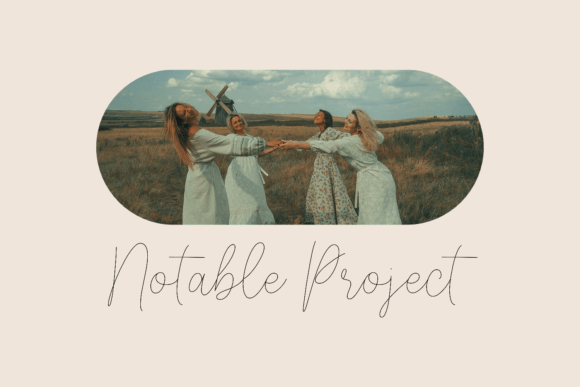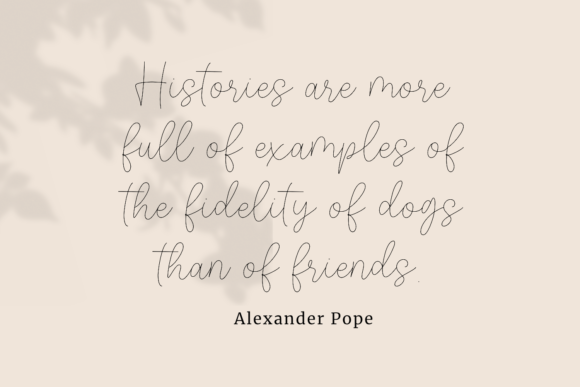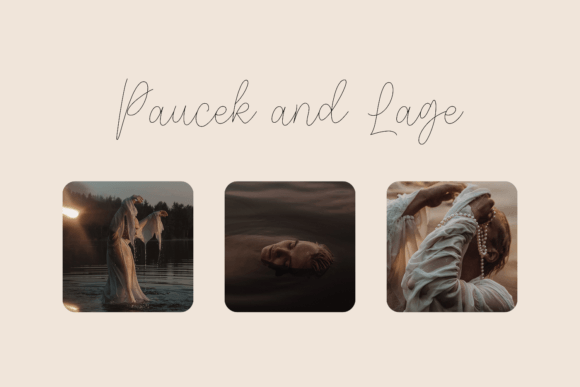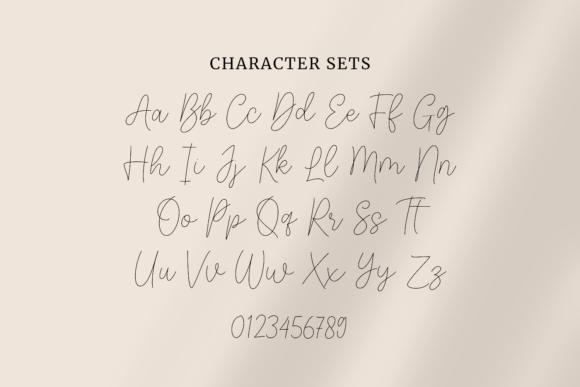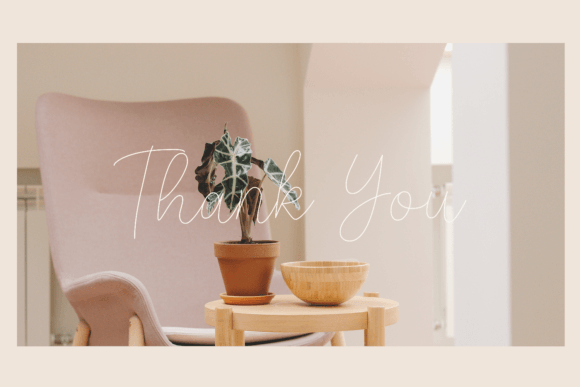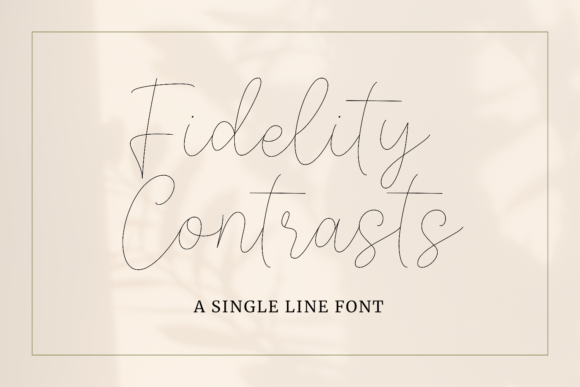
Fidelity Contrasts Font: Elevate Your Designs with Elegance
In the world of typography, fonts play a crucial role in conveying the tone and aesthetic of a design. For those seeking a touch of sophistication and elegance, Fidelity Contrasts Font is an exceptional choice. This distinct, graceful single-line font is poised to captivate your audience with its ravishing style, making it perfect for a variety of creative projects.
Discover the Charm of Fidelity Contrasts Font
Fidelity Contrasts Font is a stunning typeface that boasts a unique single-line design. Its elegant lines and curves create a beautiful visual experience, making it an excellent selection for designers and crafters looking to add a touch of refinement to their work. Whether you’re creating wedding invitations, stationery art, social media posts, or any other design project, Fidelity Contrasts Font is sure to impress.
With Fidelity Contrasts Font, the possibilities are endless. Here are some ideas to get you started:
- Wedding Invitations: Create gorgeous wedding invitations that set the tone for a luxurious and memorable celebration. The font’s elegant design makes it perfect for formal wedding stationery.
- Stationery Art: Add a touch of sophistication to your stationery art with Fidelity Contrasts Font. Use it to create beautiful greeting cards, thank-you notes, and more.
- Social Media Posts: Make your social media posts stand out with the font’s eye-catching design. Use it to create engaging quotes, announcements, and promotional content.
- Branding and Packaging: Elevate your brand’s visual identity with Fidelity Contrasts Font. Use it to create stunning logos, labels, and packaging designs that exude elegance and refinement.
Why Choose Fidelity Contrasts Font?
So, what sets Fidelity Contrasts Font apart from other fonts? Here are some reasons why designers and crafters love this beautiful typeface:
- Unique Design: Fidelity Contrasts Font features a distinct single-line design that is both elegant and eye-catching.
- Versatility: The font is perfect for a wide range of design projects, from wedding invitations to social media posts.
- Elegance: Fidelity Contrasts Font exudes sophistication and refinement, making it ideal for designs that require a touch of luxury.
- Easy to Use: The font is easy to read and works well in various sizes, making it perfect for both print and digital designs.
Tips for Using Fidelity Contrasts Font
To get the most out of Fidelity Contrasts Font, here are some tips to keep in mind:
- Pair with Complementary Fonts: Pair Fidelity Contrasts Font with complementary fonts to create a unique and visually appealing design.
- Experiment with Colors: Try out different color schemes to find the perfect combination that complements the font’s elegant design.
- Play with Sizes: Experiment with different font sizes to create visual hierarchy and add depth to your design.
Fidelity Contrasts Font is a stunning single-line font that is sure to elevate your designs with its elegant and refined style. With its versatility, unique design, and ease of use, it’s perfect for a wide range of creative projects. Whether you’re a designer or crafter, Fidelity Contrasts Font is an excellent choice for anyone looking to add a touch of sophistication to their work. So, fall for its ravishing style and use it to create gorgeous designs that leave a lasting impression!